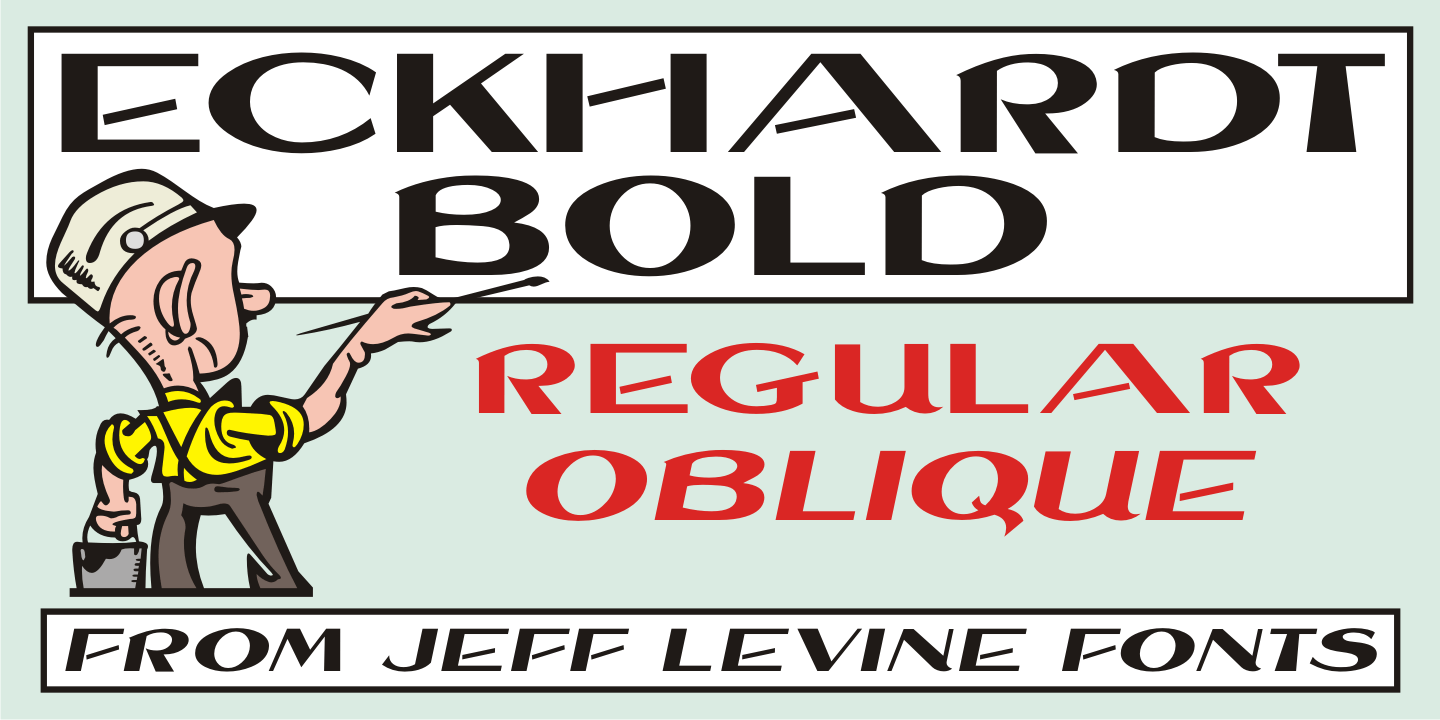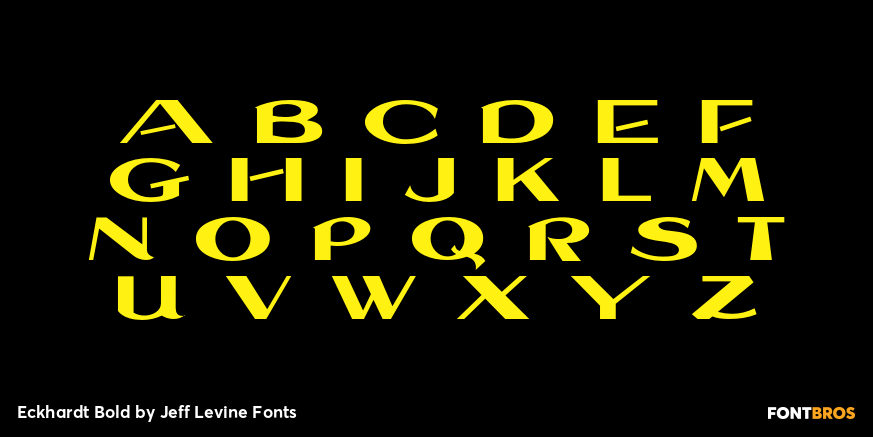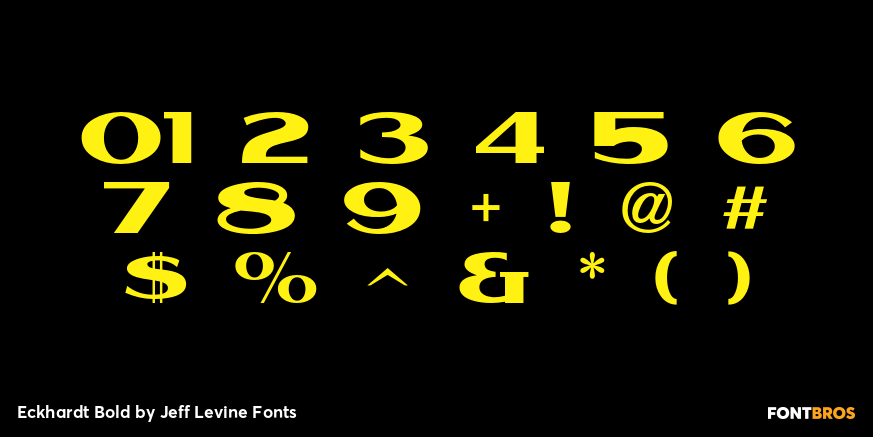
Eckhardt Bold
Eckhardt Bold JNL continues a series of sign painter-inspired type designs and is named in honor of the late Al Eckhardt, a talented sign man who was a good friend of Jeff Levine for about 18 years until his passing.
The font is available in both regular and oblique versions and was inspired by an example found in the 1928 edition of E.C. Mattthews' 'How to Paint Signs and Sho' Cards”.
Both squat and wide for maximum use in wall and window applications, the original name for the design is 'Heavy Plug”. Plug was the sign painter's term at the time for describing this type of letter form.